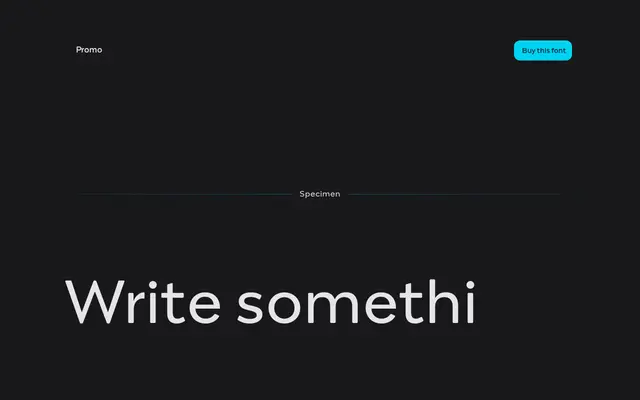
Capitalics · Mateusz Machalski
A nine-weight rounded sans-serif from Capitalics, designed for branding and display work with soft, friendly letterforms.
A rounded sans-serif family spanning nine weights from Thin to Bold, with no italics or condensed cuts. The soft terminals give it a warm, approachable tone suited to consumer-facing branding and display settings. Designed by Mateusz Machalski of Capitalics.
A rounded sans-serif with soft terminals throughout, described by the foundry as having a friendly, approachable character suited to branding and display use.